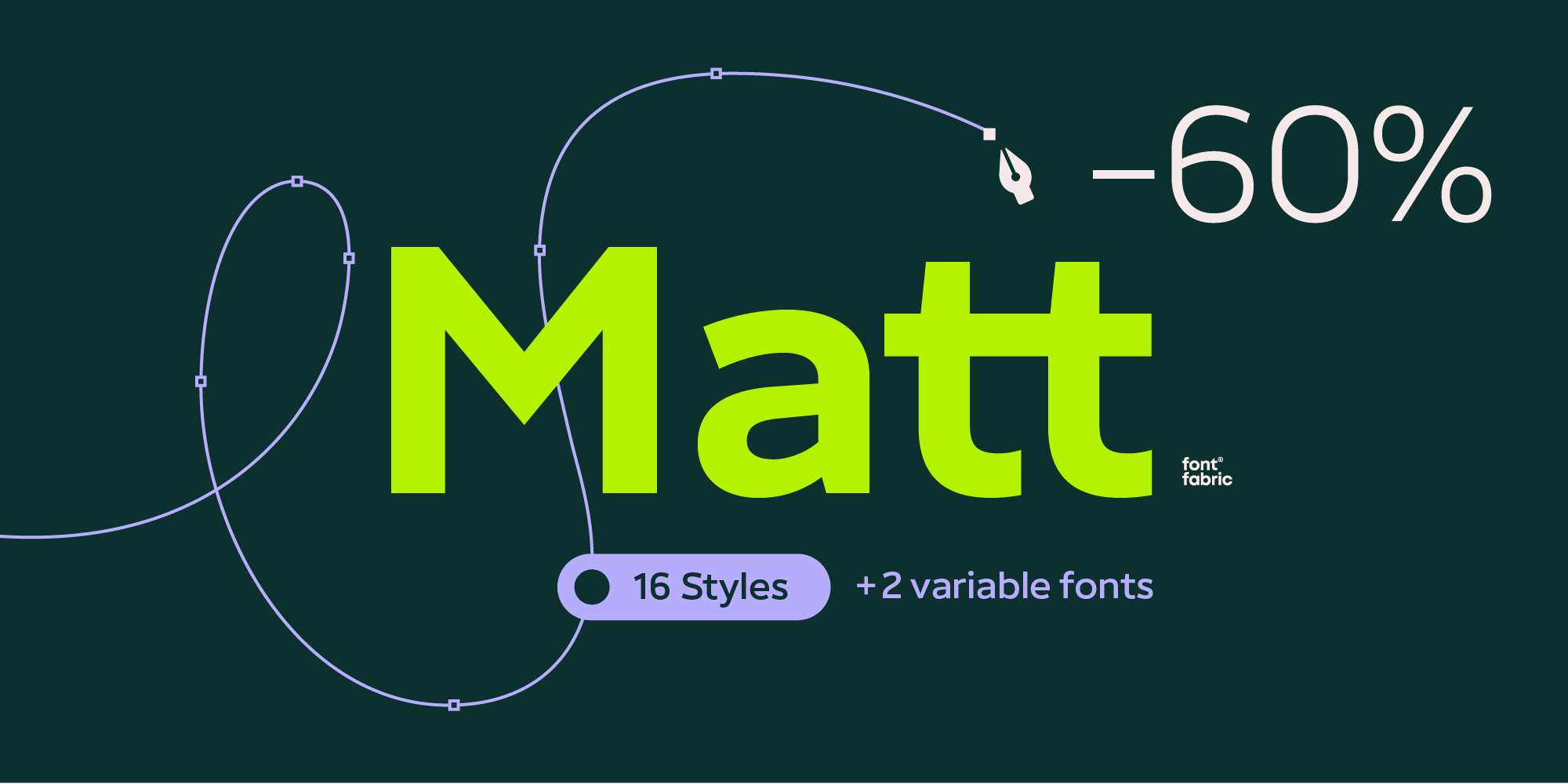
The Matt Font excels in various design applications including contemporary brand identities, modern editorial layouts, minimalist poster design, clean corporate communications, sophisticated web typography, professional business presentations, sleek product packaging, architectural firm branding, tech startup materials, and refined publishing projects that demand understated elegance and matte sophistication.
What makes the Matt Font exciting is its embodiment of sophisticated understatement through carefully refined letterforms that suggest the subtle elegance of matte finishes and non-reflective surfaces. This typeface captures the essence of contemporary minimalism through its restrained character designs that prioritize clarity and function while maintaining distinctive personality through subtle details and refined proportions. The font's matte-inspired aesthetic makes it perfect for brands seeking to communicate quiet confidence, professional competence, and sophisticated restraint through typography that speaks volumes without shouting for attention.
The Matt Font family typically includes comprehensive weight variations from light to bold, featuring corresponding italic styles and extended character sets optimized for contemporary design applications. These family options often include condensed variants for efficient space usage, subtle stylistic alternates, and professional symbols that enhance the font's versatility while maintaining the signature matte aesthetic that suggests premium quality without ostentation.
Design professionals and contemporary brands consistently select Matt Font Free Download for projects requiring typography that communicates sophisticated professionalism and modern refinement. This typeface delivers exceptional performance in corporate communications, contemporary publishing, and brand development where establishing credible authority without aggressive presentation is essential for audience respect. The font's understated character makes it particularly effective for luxury brands and professional services seeking elegant simplicity. Download Matt Font Free Download today to access this refined typeface that transforms communications with its matte sophistication and contemporary elegance, creating compelling visual experiences that demonstrate quiet confidence and professional excellence while maintaining the highest standards of typographic refinement and functional clarity.